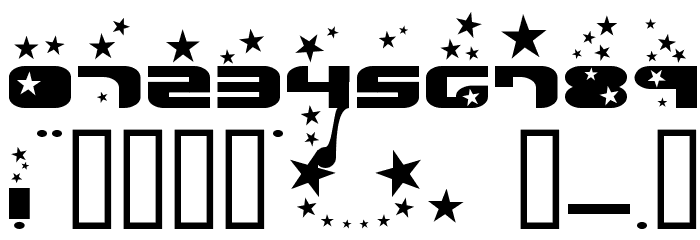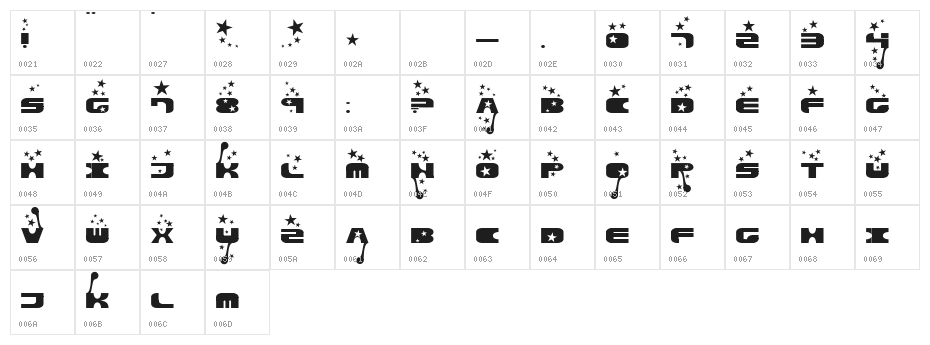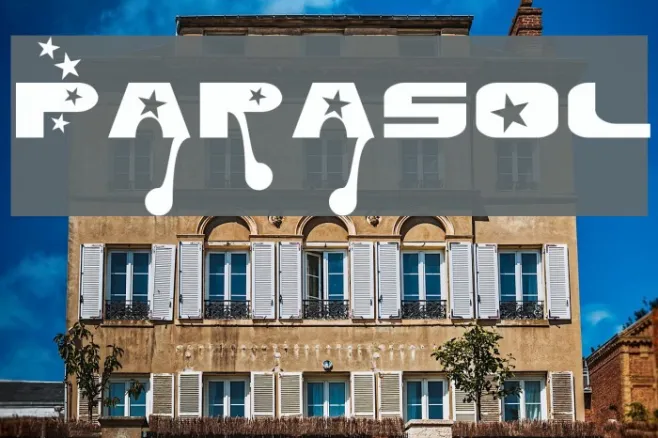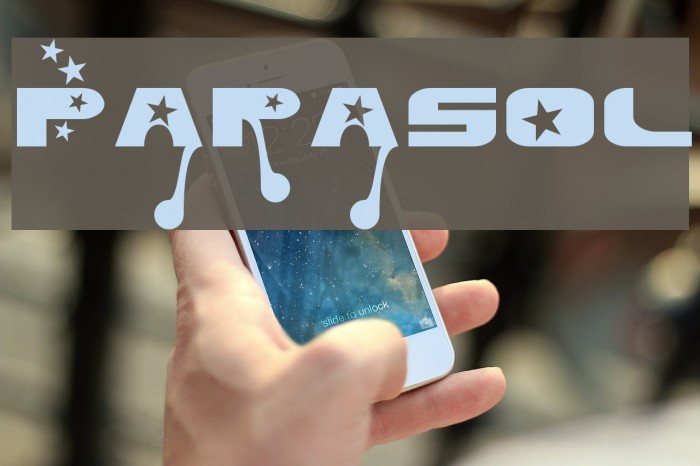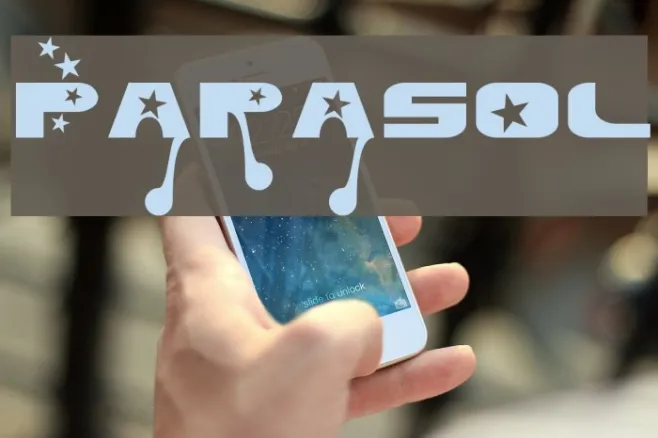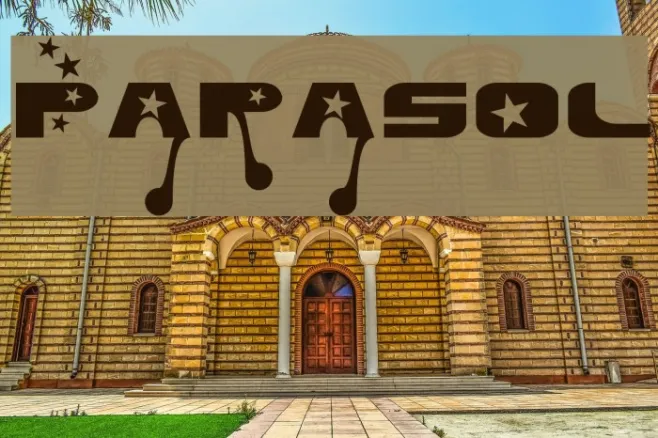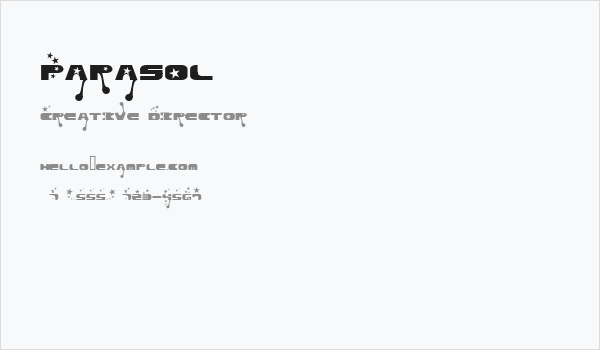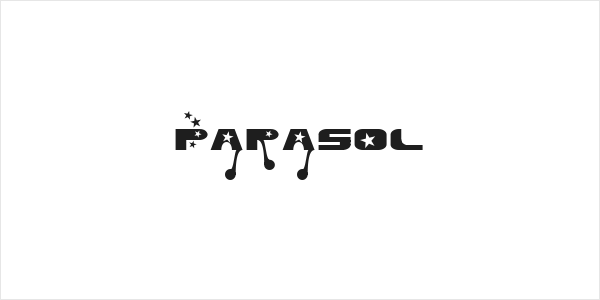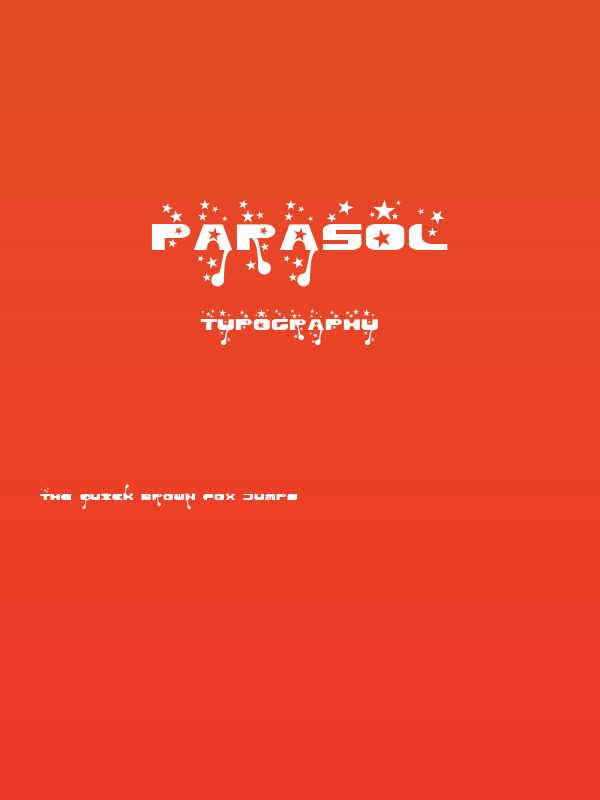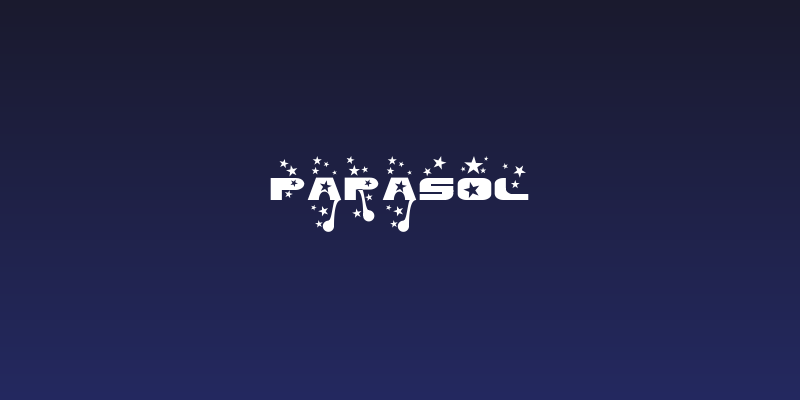
Parasol Font
Parasol Description
This font features a playful and decorative style, incorporating musical notes and stars into the design of each character. The uppercase and lowercase letters are bold and rounded, with unique embellishments that make them stand out. The numbers and special characters also follow this whimsical theme, making the font ideal for creative and fun projects. The overall appearance is eye-catching and dynamic, perfect for capturing attention in a variety of settings.
| Proposed Projects | Ideal for music-themed posters, children's book covers, party invitations, and creative branding. |